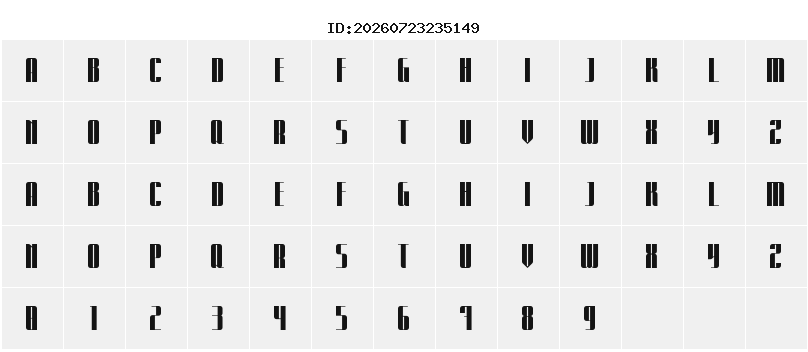
• Font Name: Expatriate_Promo
• Font ID: Expatriate
• Full Font Name: Expatriate_Promo
• Designer: Ezza Adhreza
• Manufacturer: Ezza Adhreza
About Expatriate_Promo.ttf
Expatriate_Promo.ttf is a modern, elegant sans-serif font designed for ultimate readability and visual harmony. Perfect for branding, headlines, web design, and print materials.